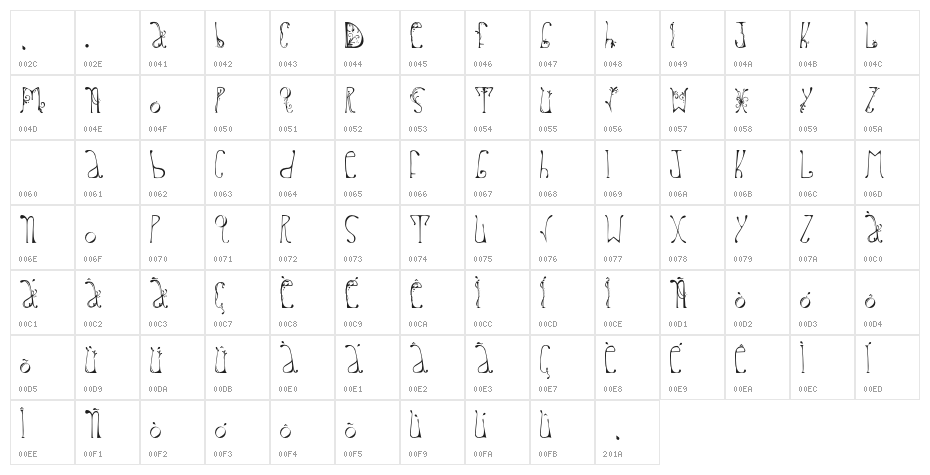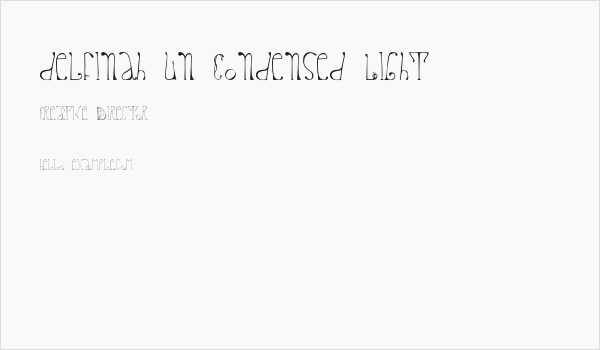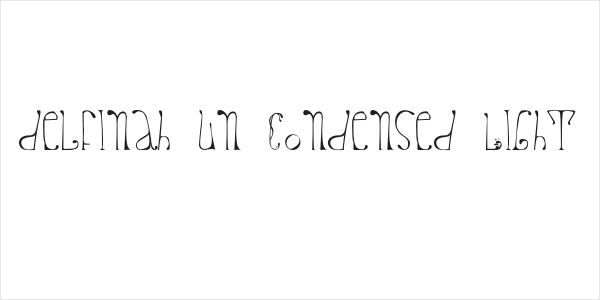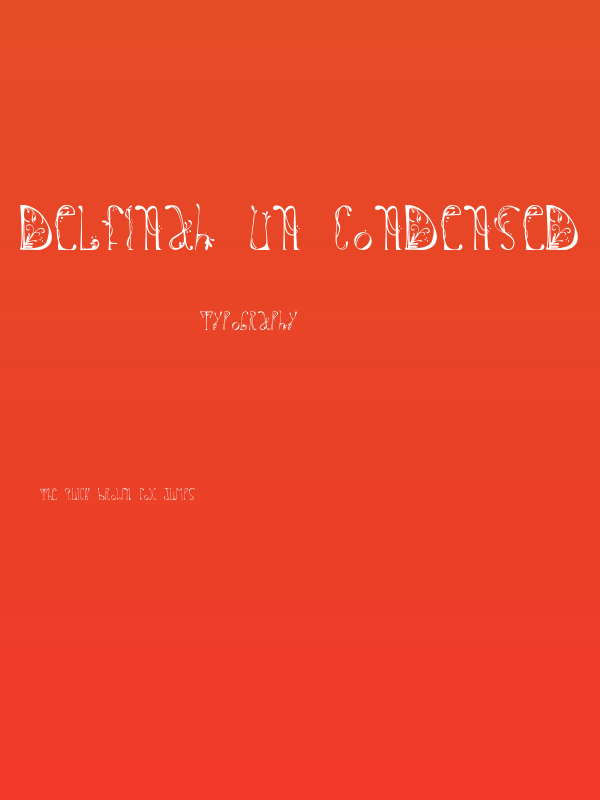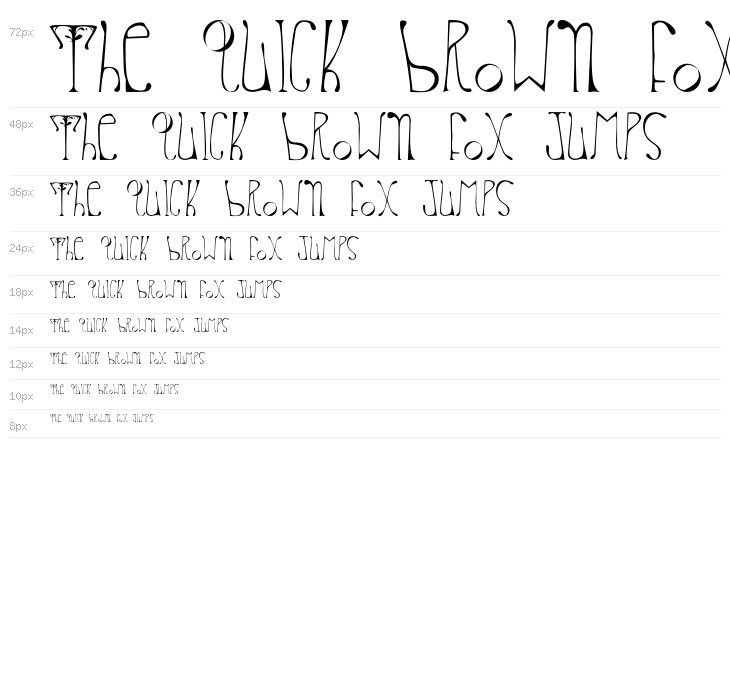
delfinah un Condensed Light Font
delfinah un Condensed Light Description
This font features a whimsical and decorative style, characterized by its playful and artistic letterforms. Each character is adorned with intricate details and flourishes, giving it a unique and creative appearance. The font maintains a consistent light weight throughout, contributing to its delicate and airy feel. The letters are elongated and condensed, adding to the elegant and sophisticated look. The overall design is reminiscent of a fairy tale or fantasy theme, making it ideal for projects that require a touch of magic and creativity. The font's artistic nature makes it stand out, capturing attention with its distinctive and imaginative style.
| Proposed Projects | Ideal for fantasy book covers, whimsical invitations, creative branding, and artistic posters. |